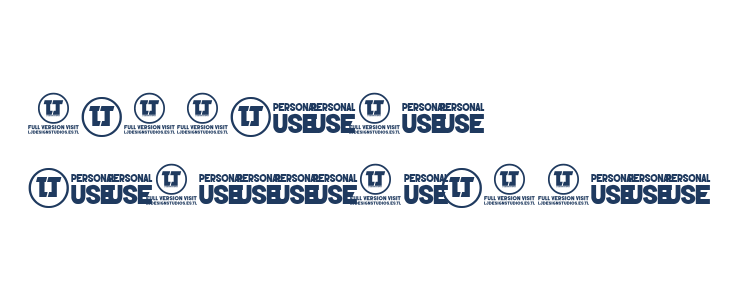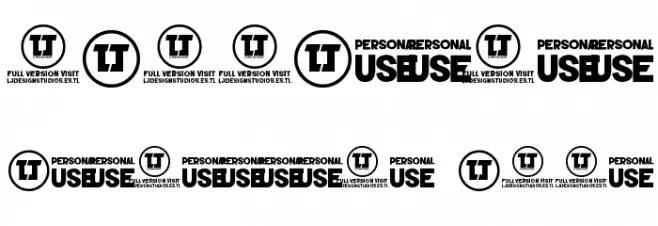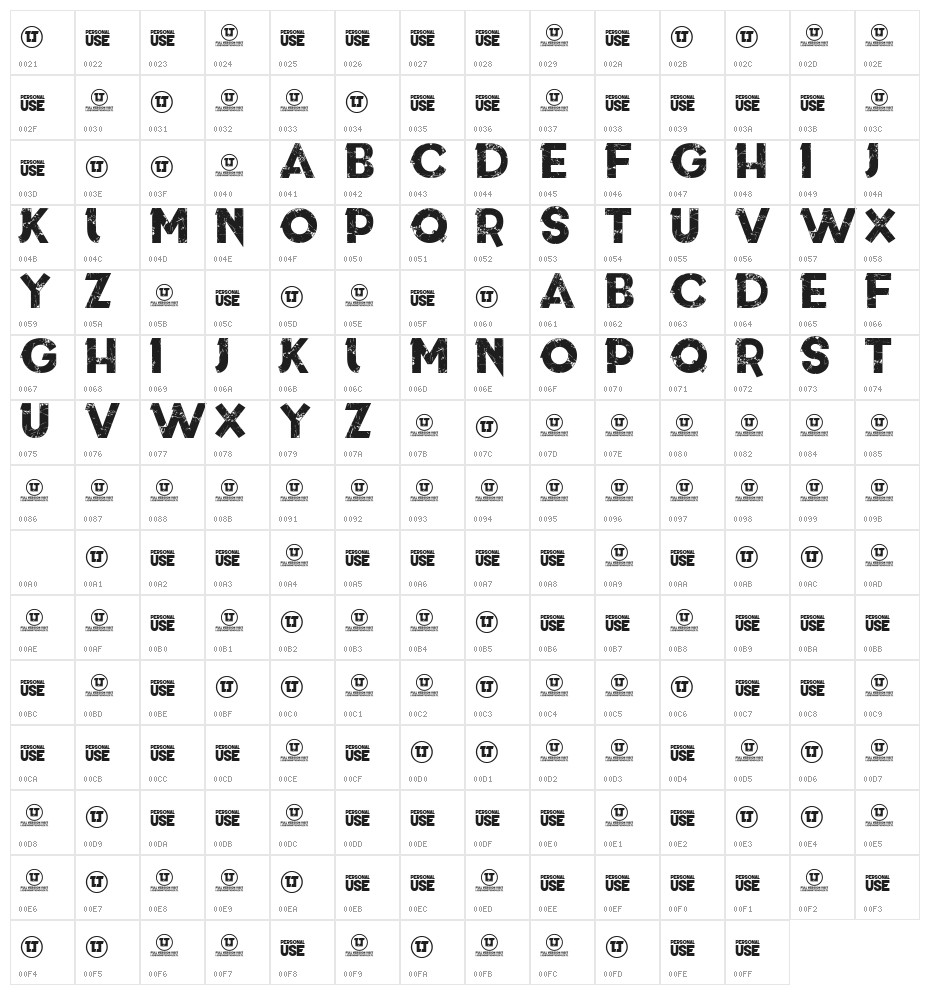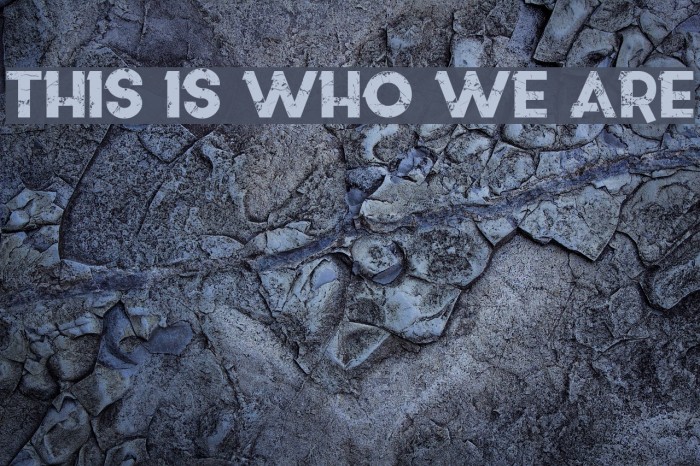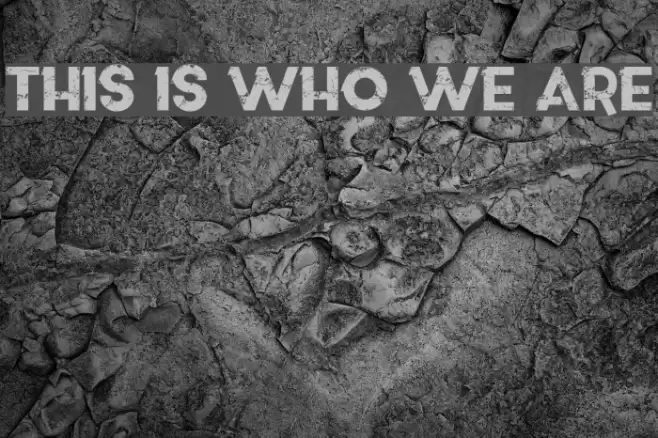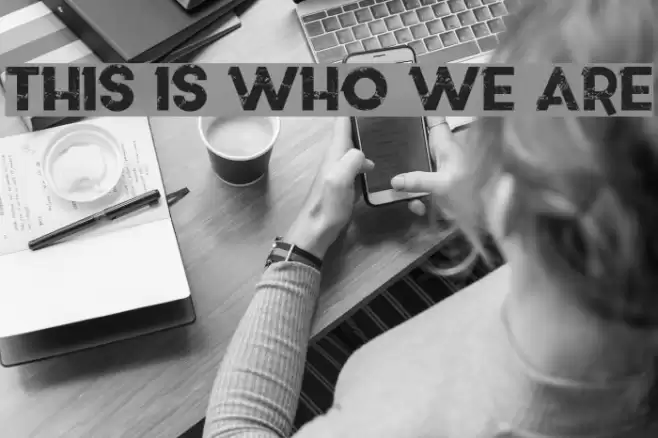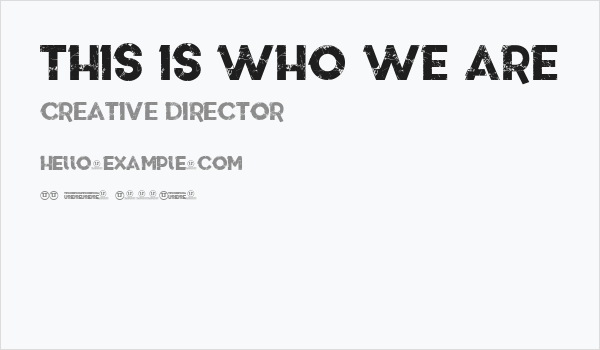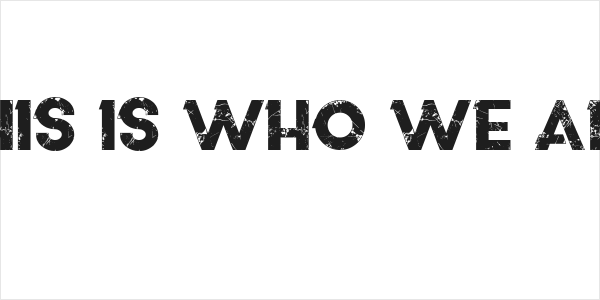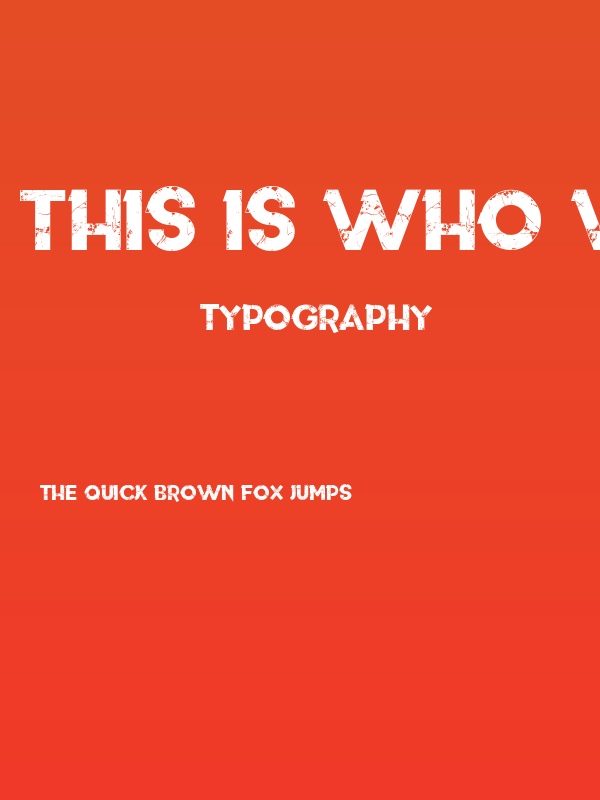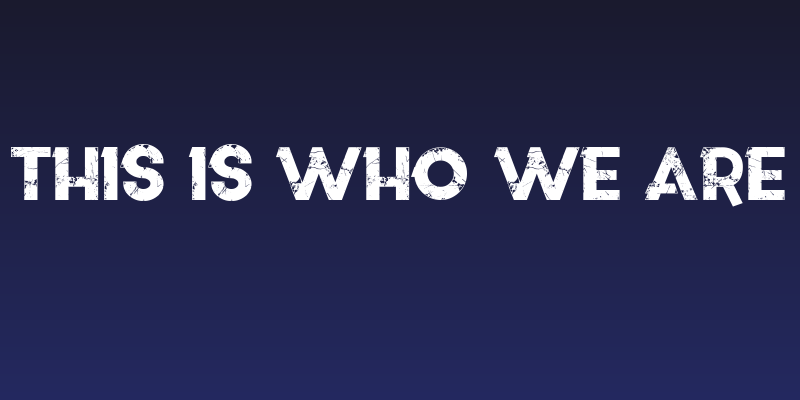
This is who we are Font
This is who we are Description
This font features a bold, distressed style with a textured appearance that gives it a rugged, vintage feel. The uppercase letters are uniformly bold, with a consistent width that emphasizes strength and stability. The distressed texture adds a layer of complexity, making each letter appear unique while maintaining overall cohesion. This style is reminiscent of old printing techniques or worn-out signage, adding a sense of history and character. The font's boldness ensures it stands out, making it ideal for impactful designs.
| Proposed Projects | Ideal for vintage-themed posters, branding for rustic or industrial businesses, album covers, and any project needing a bold, historical touch. |